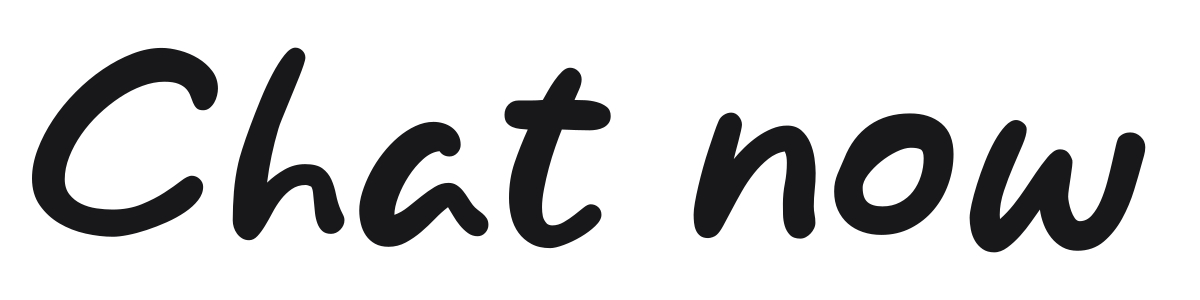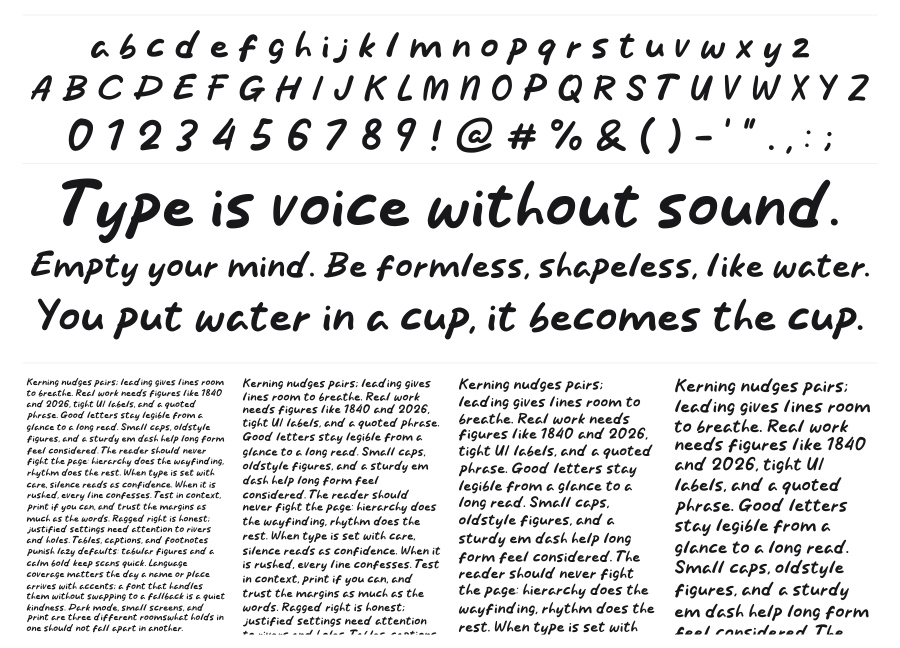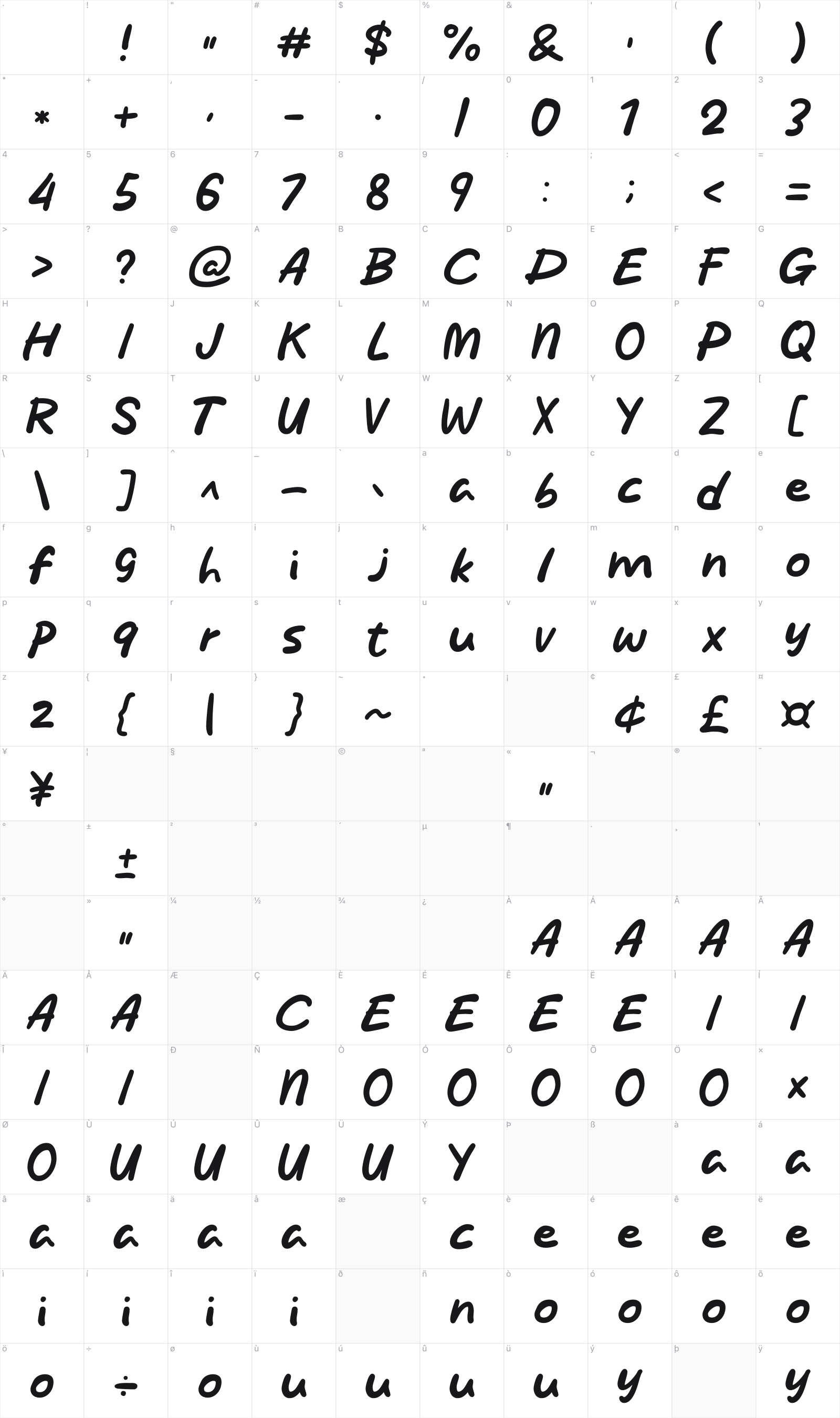
Chat now
Chat now is a bold casual script that mimics the energy of a thick marker drawn quickly by hand. The letters bounce with irregular rhythm and rounded terminals, giving it a warm, spontaneous feel that reads naturally at headline sizes. It fits naturally in social content, packaging, and any branding that wants to feel human and unpretentious.